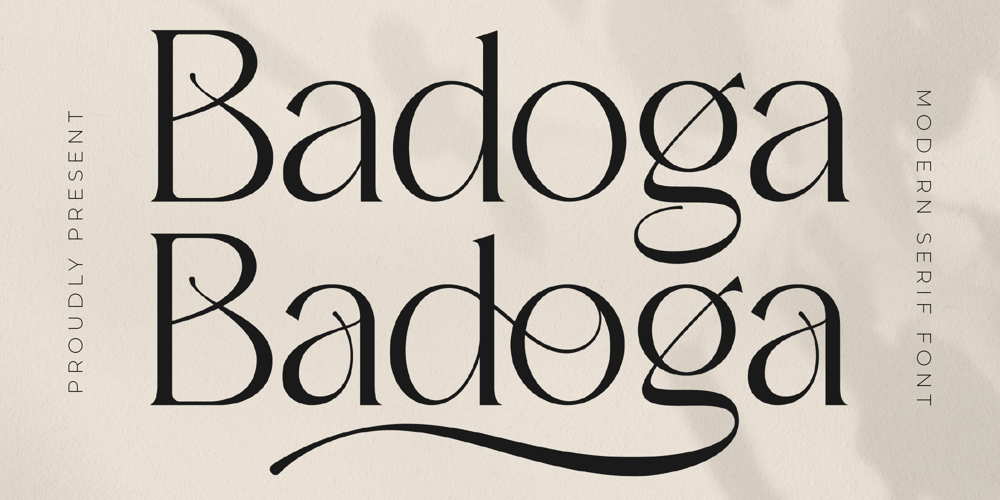
Badoga Font Family was designed by Heru Utama Putra and published by Letterena Studios. Badoga contains 2 styles and family package options. Badoga is a classic serif font with a unique style and modern look. This typeface is perfect for elegant and luxury logos, book or movie title designs, fashion brands, magazines, clothes, lettering, quotes, and so much more.